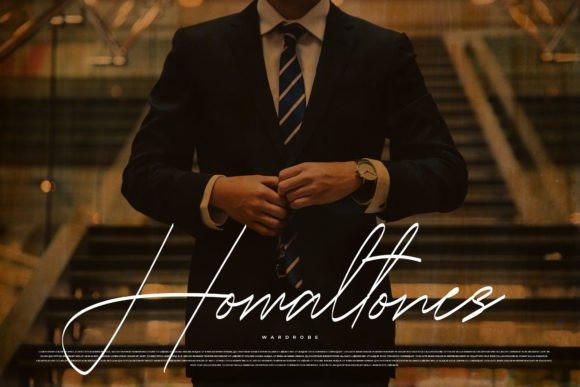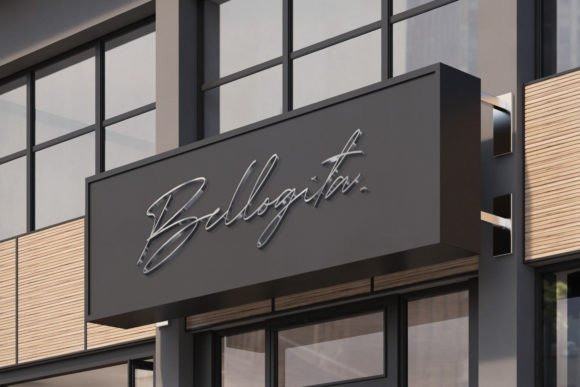
Jellmotsy Handwritten Font
Jellmotsy Handwritten Font is a delicate, elegant and flowing handwritten font. It has beautiful and well-balanced characters and as a result, it matches a wide pool of designs.